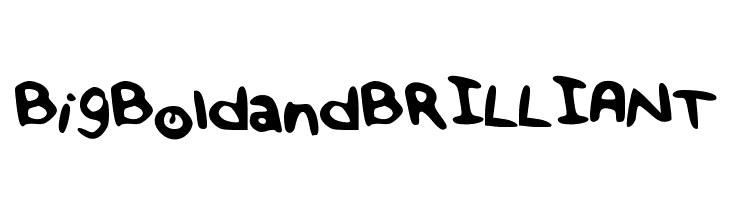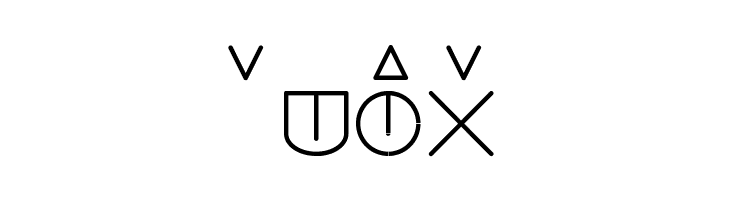
A clean, modern monospaced font with uniform character width and geometric design.
A modern stencil font with geometric lines and distinct cutouts.
A modern stencil font with geometric lines and an industrial feel.
A bold, distressed font with a rugged, textured appearance.
A bold, distressed font with a shredded, chaotic appearance.
A bold, playful font with a handcrafted, vintage feel.
A playful, decorative font with bold, rounded letters and intricate swirls.